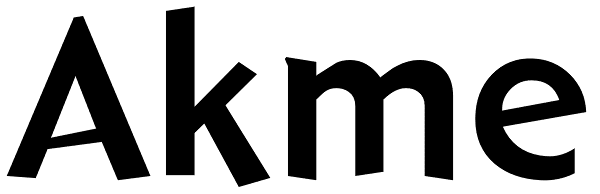
Akme
Akme is a sans serif with an industrial feel. However, it has many whimsical features like the spiral O, many special dingbats for bullets, and so on. It has oldstyle numbers and the small caps versions have lining numbers and small caps numbers. It...